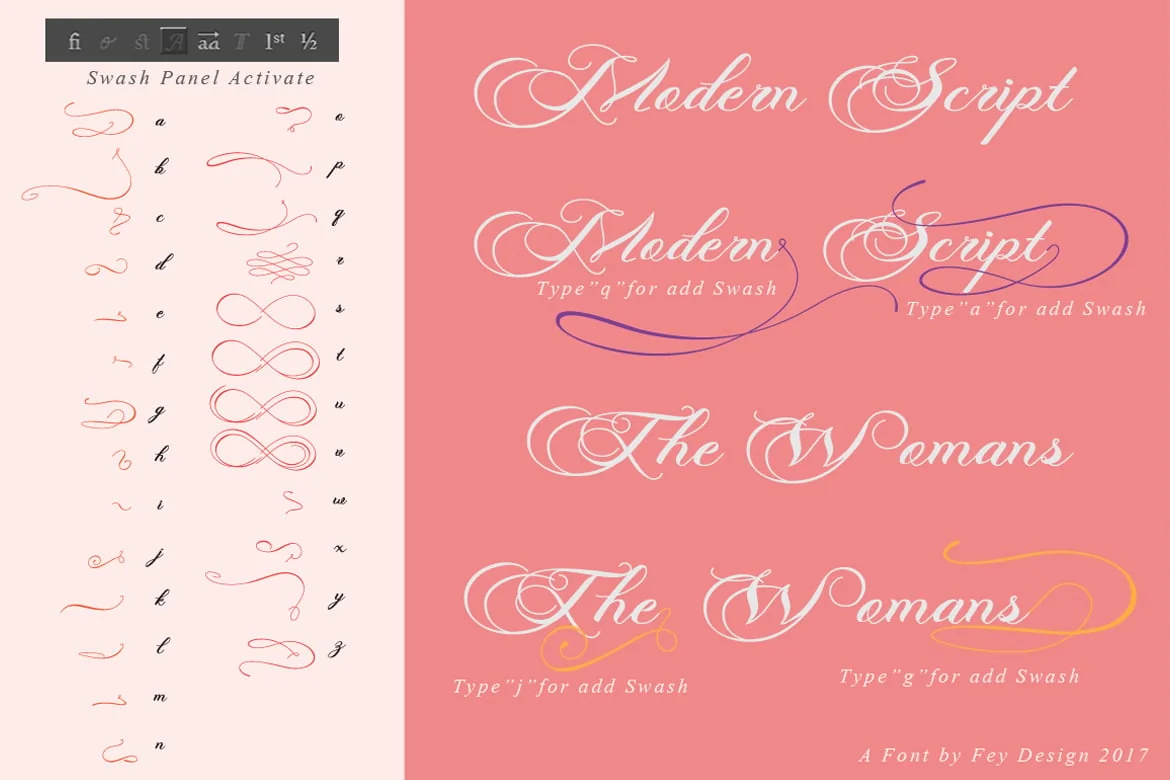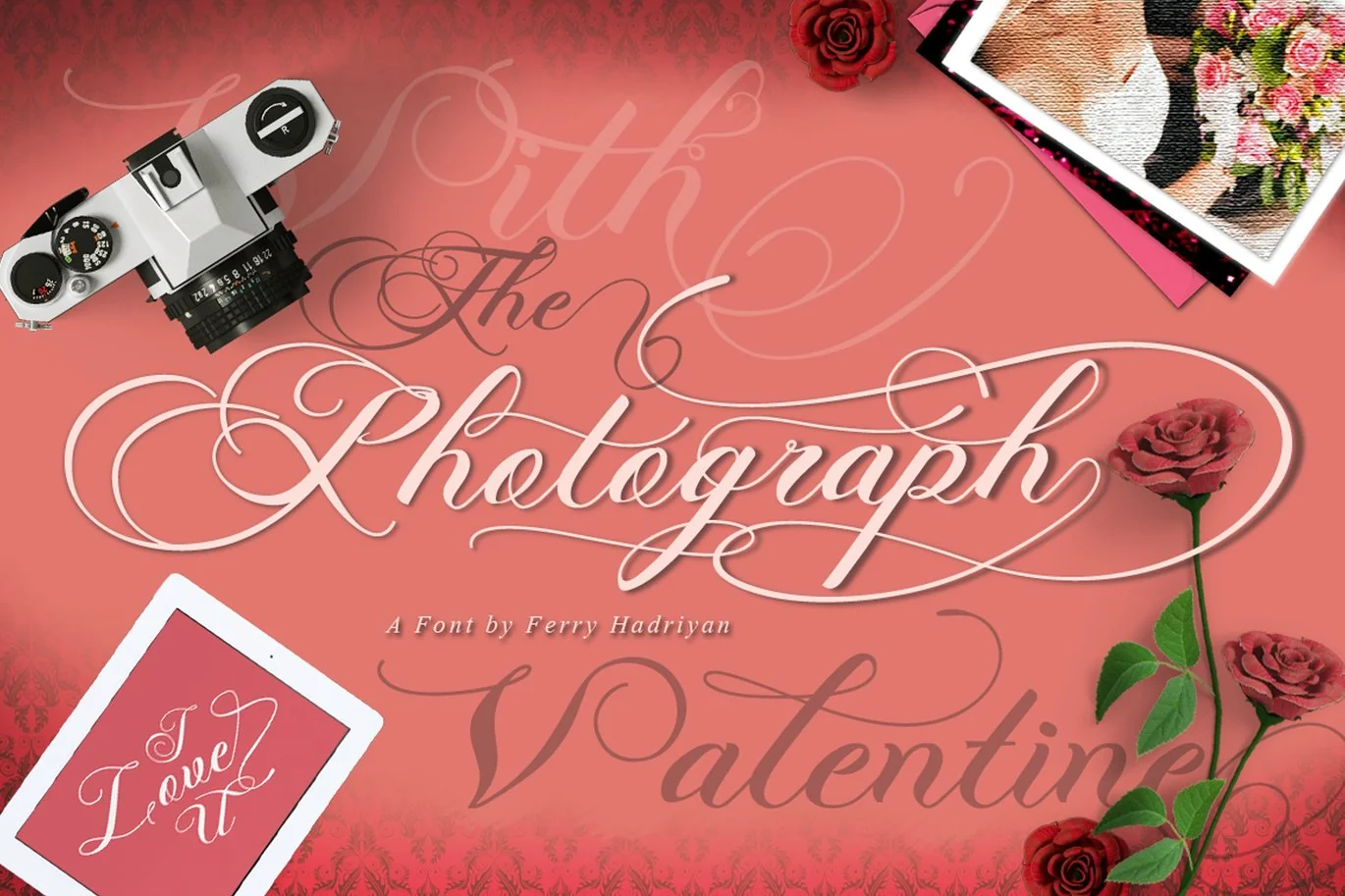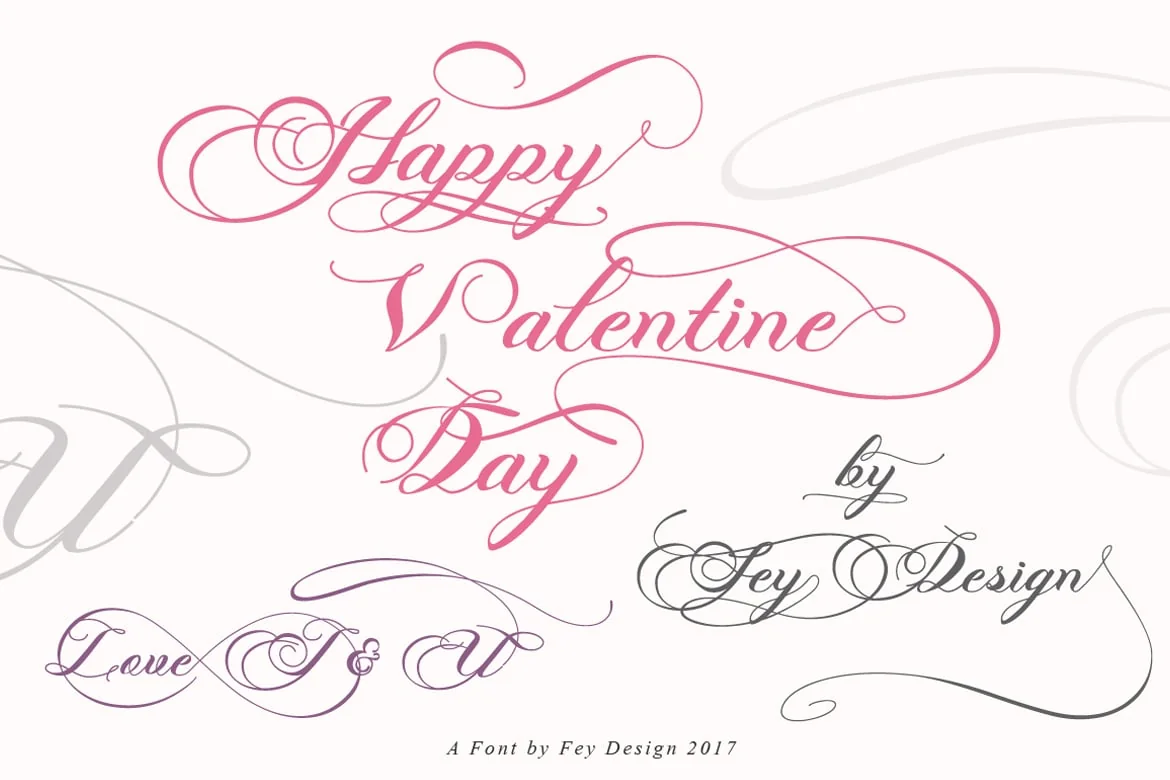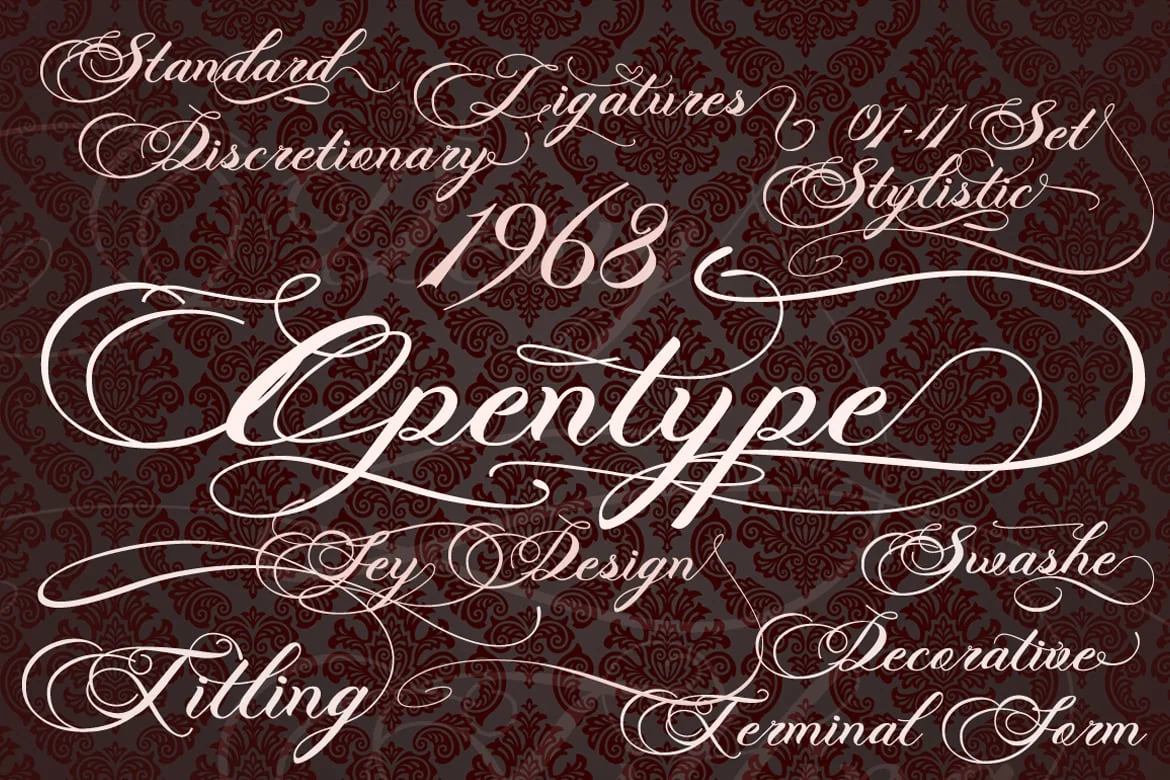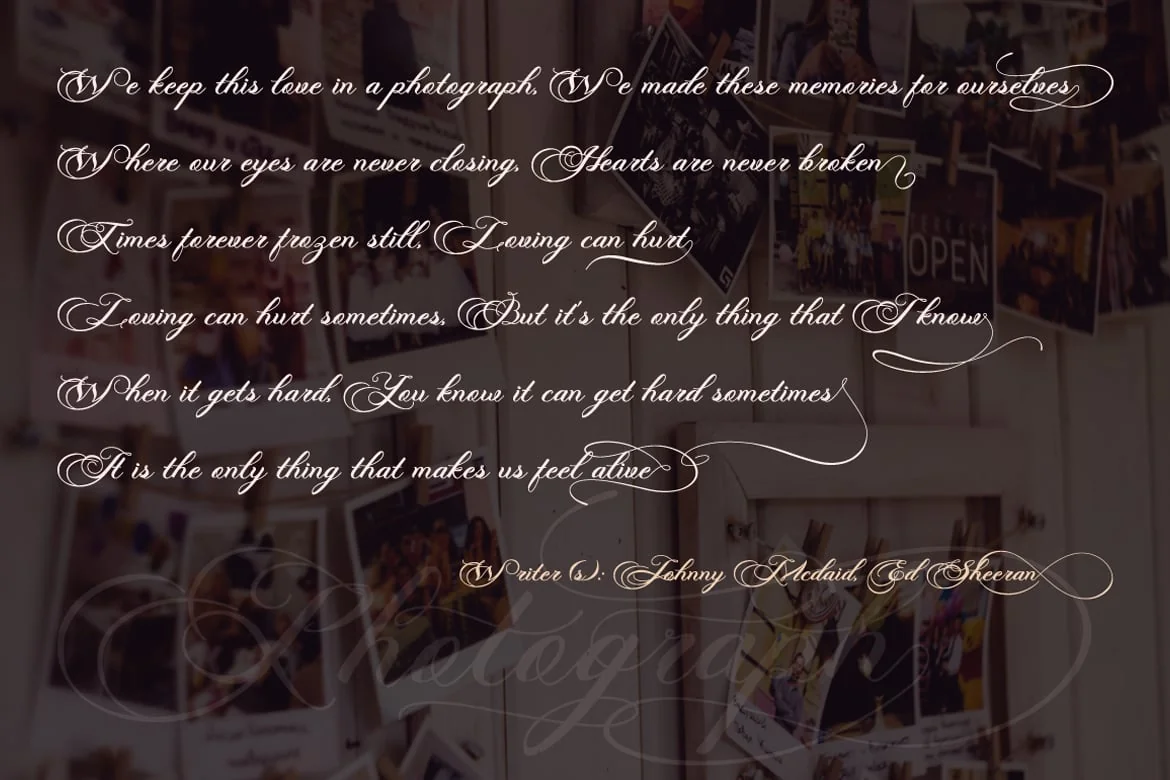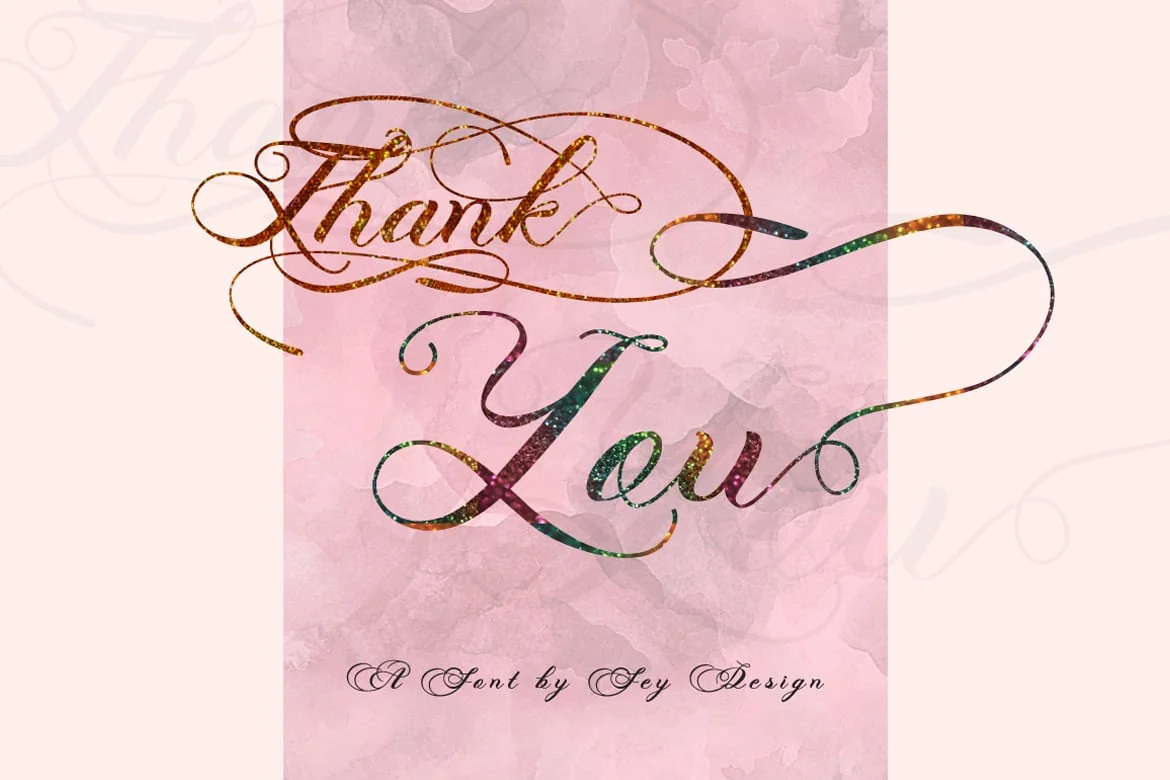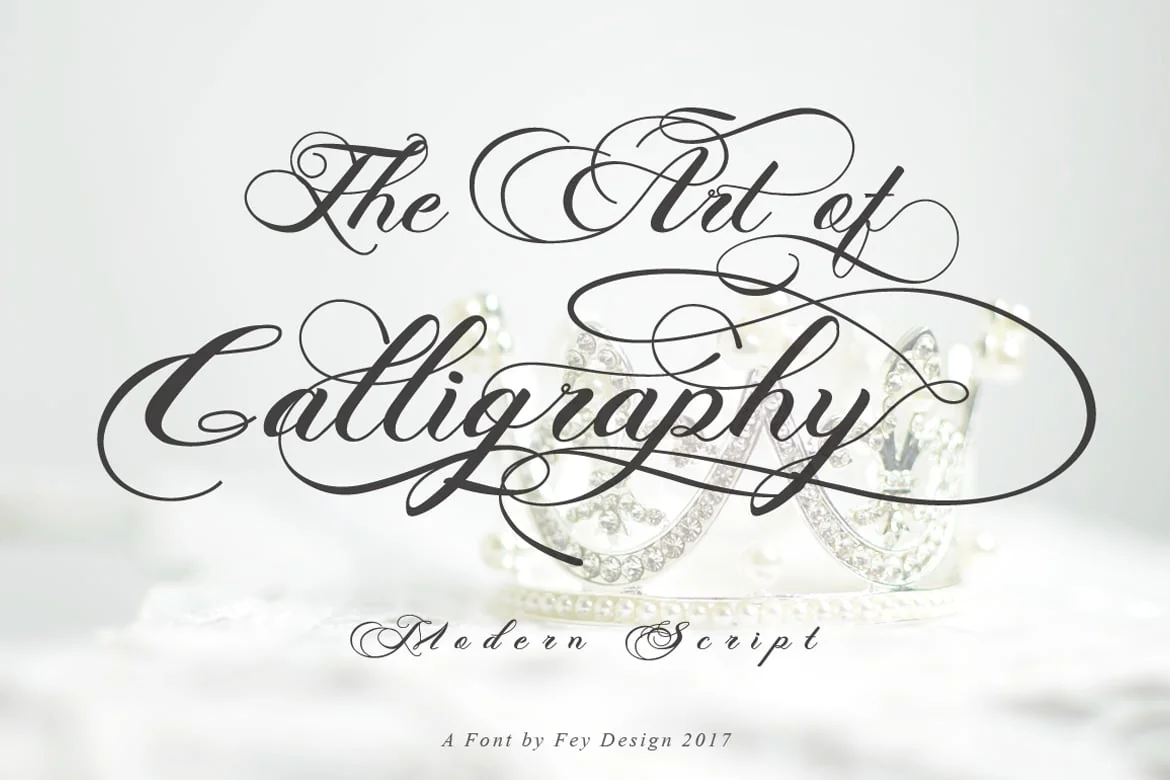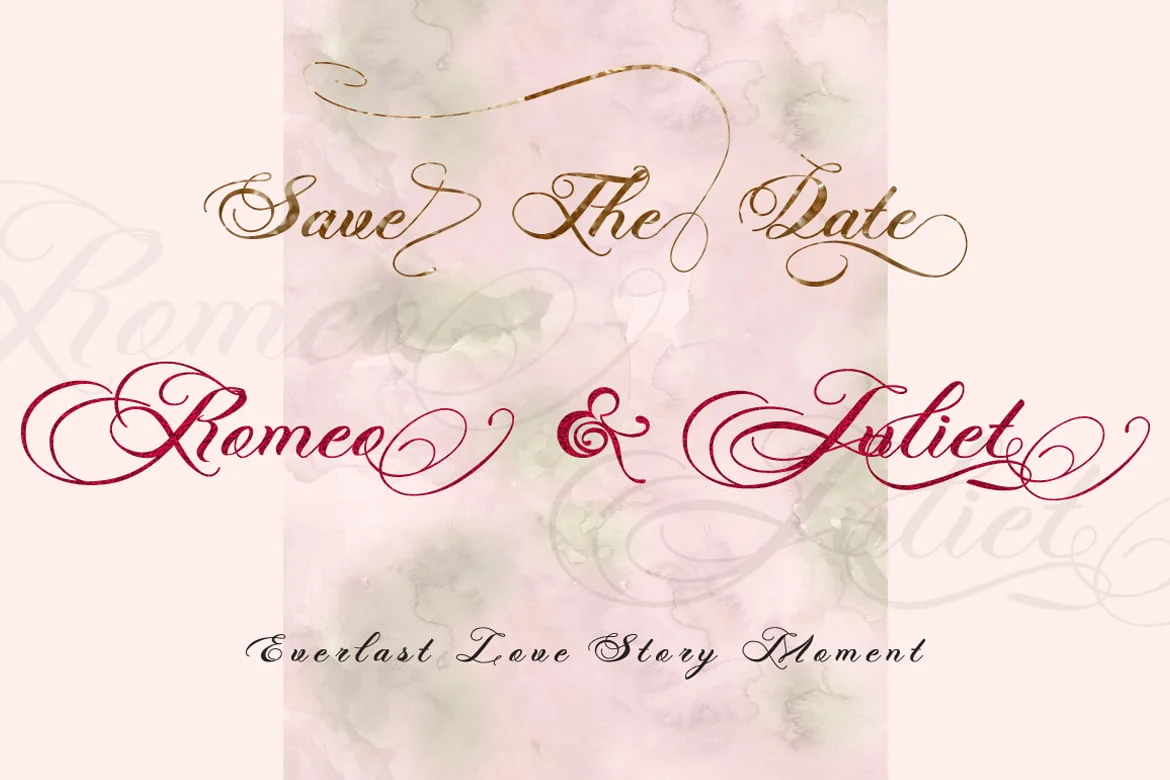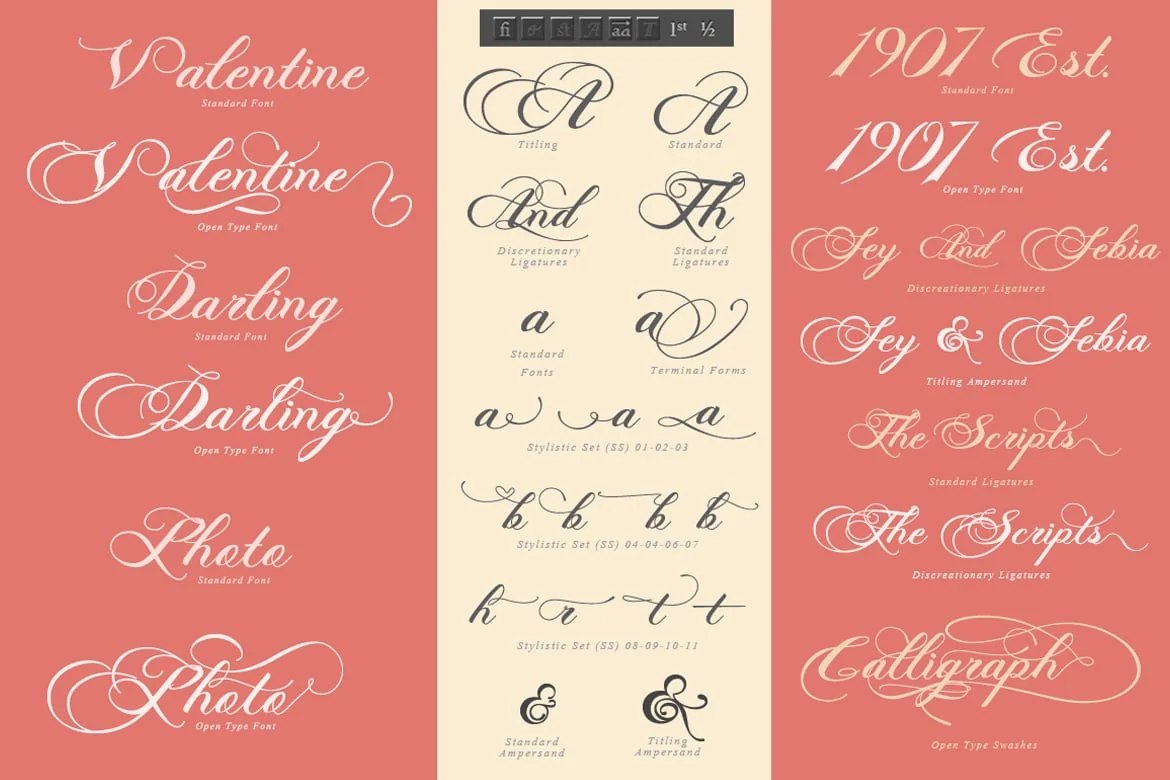
Photograph – Script Wedding Font
Photograph is script font with modern calligraphy style,so much feature OpenType with swashes, 11 stylistic set, standard ligatures, Discreationary Ligatures, Titling, Terminal Forms, etc, Suitable for design, element design, wedding, event, t-shirt, logo, badges, sticker, and awesome work, etc…
Combination alternative ligature fonts
Standard Ligatures, Stylistic Set, Multilanguage Characters, etc
Modern Calligraphy Typeface
Unique style fonts